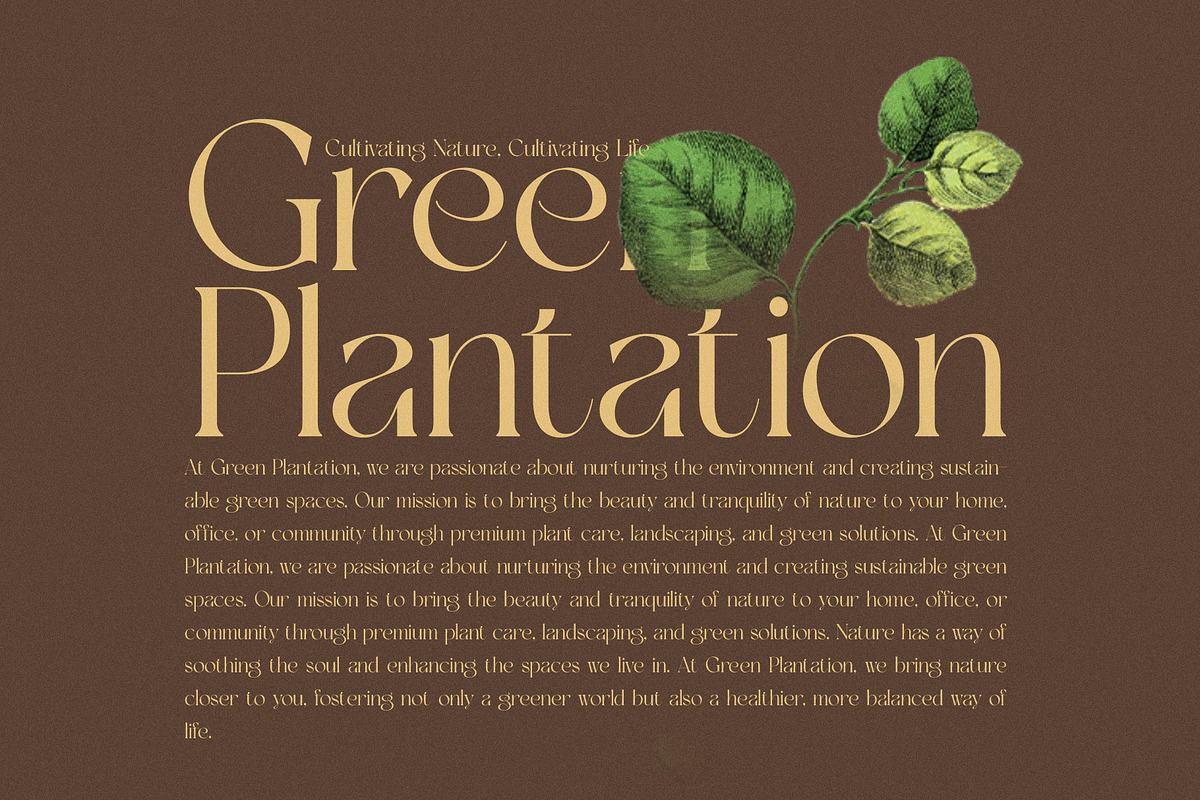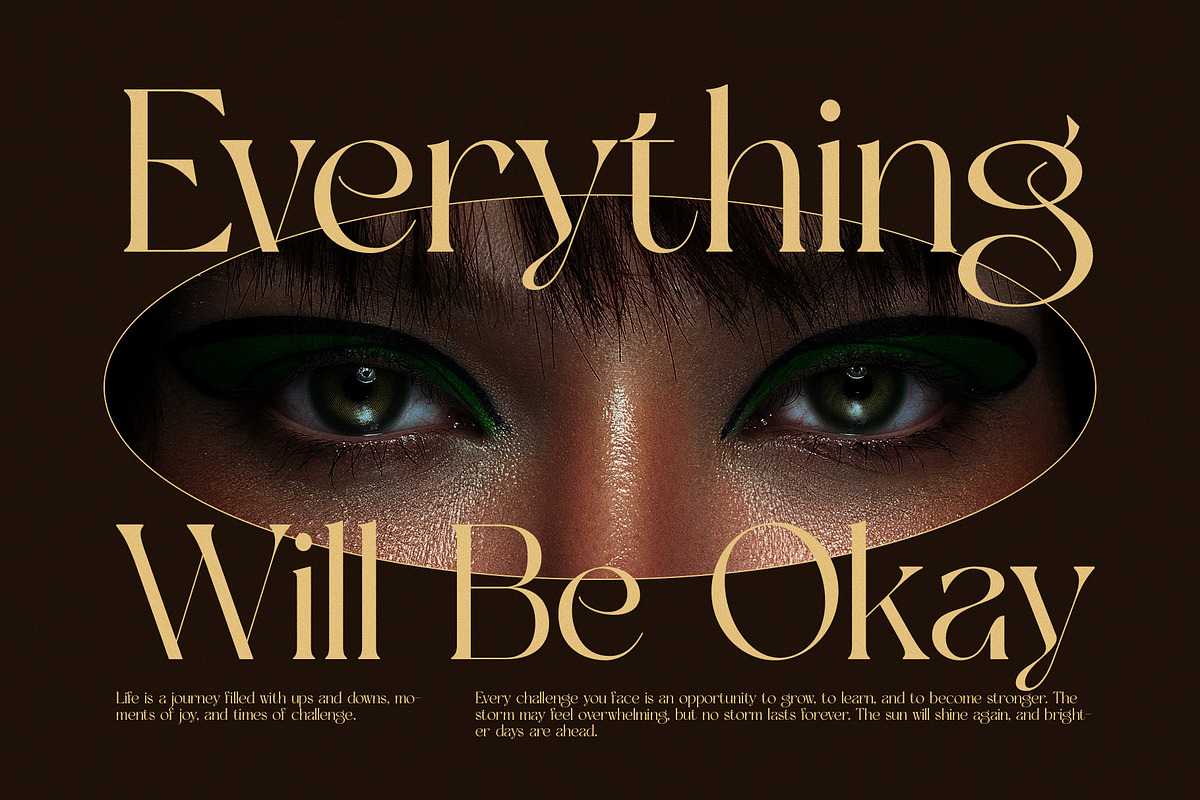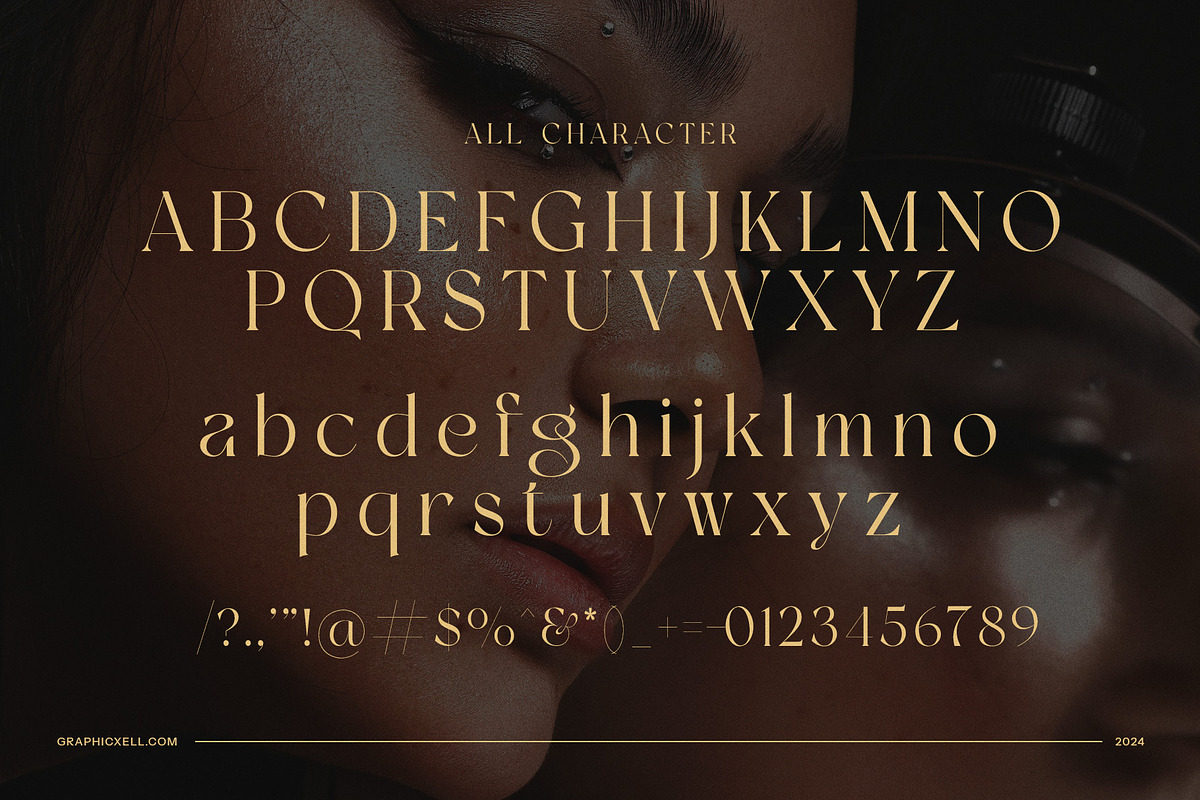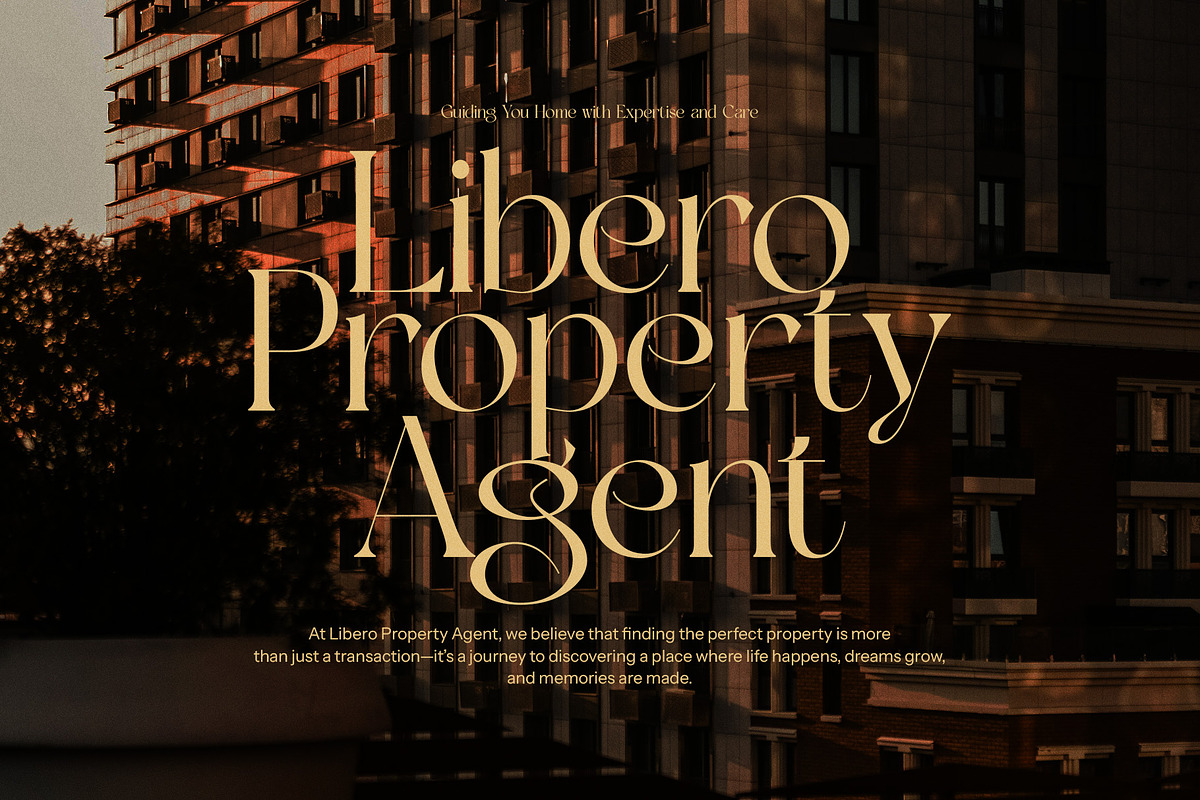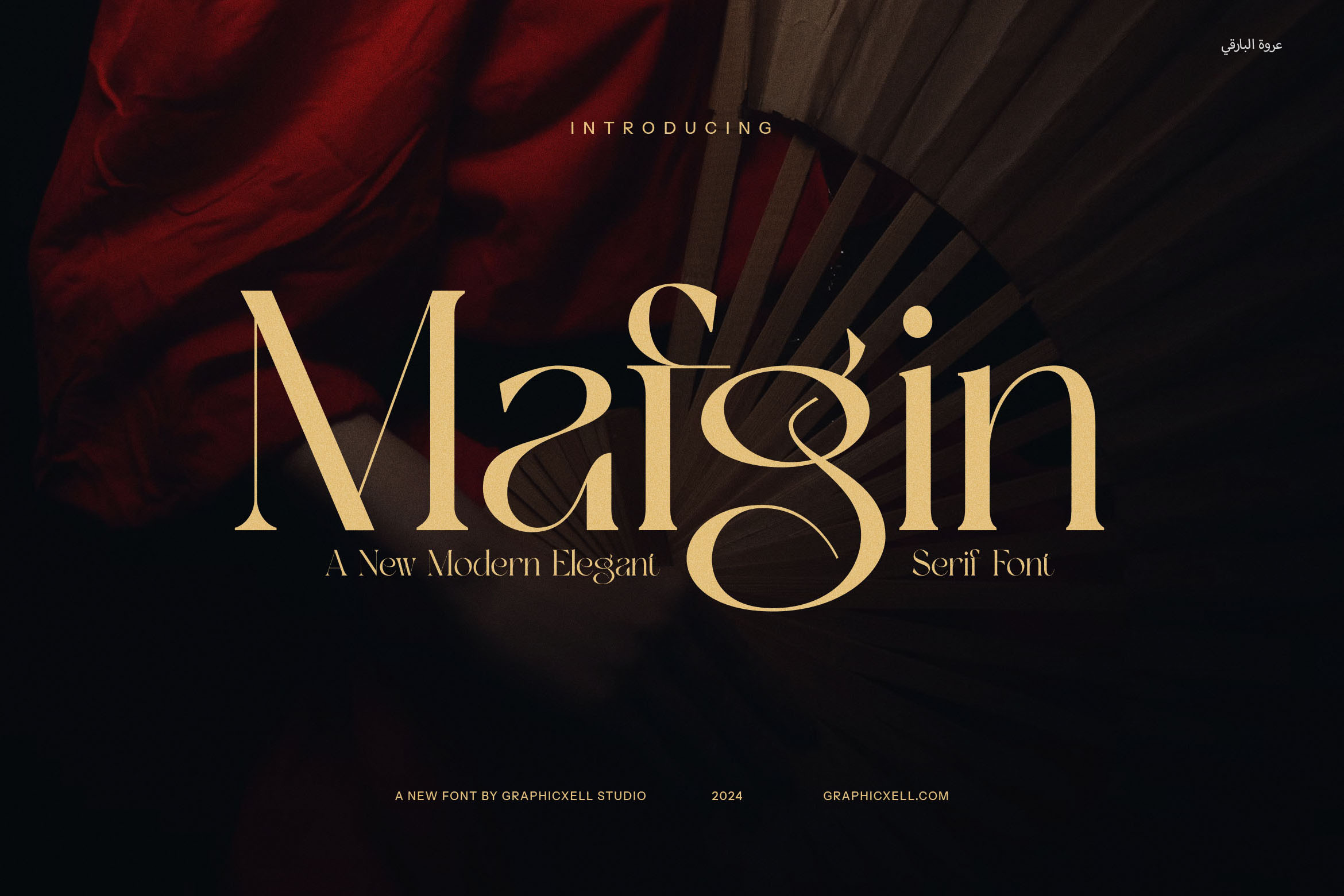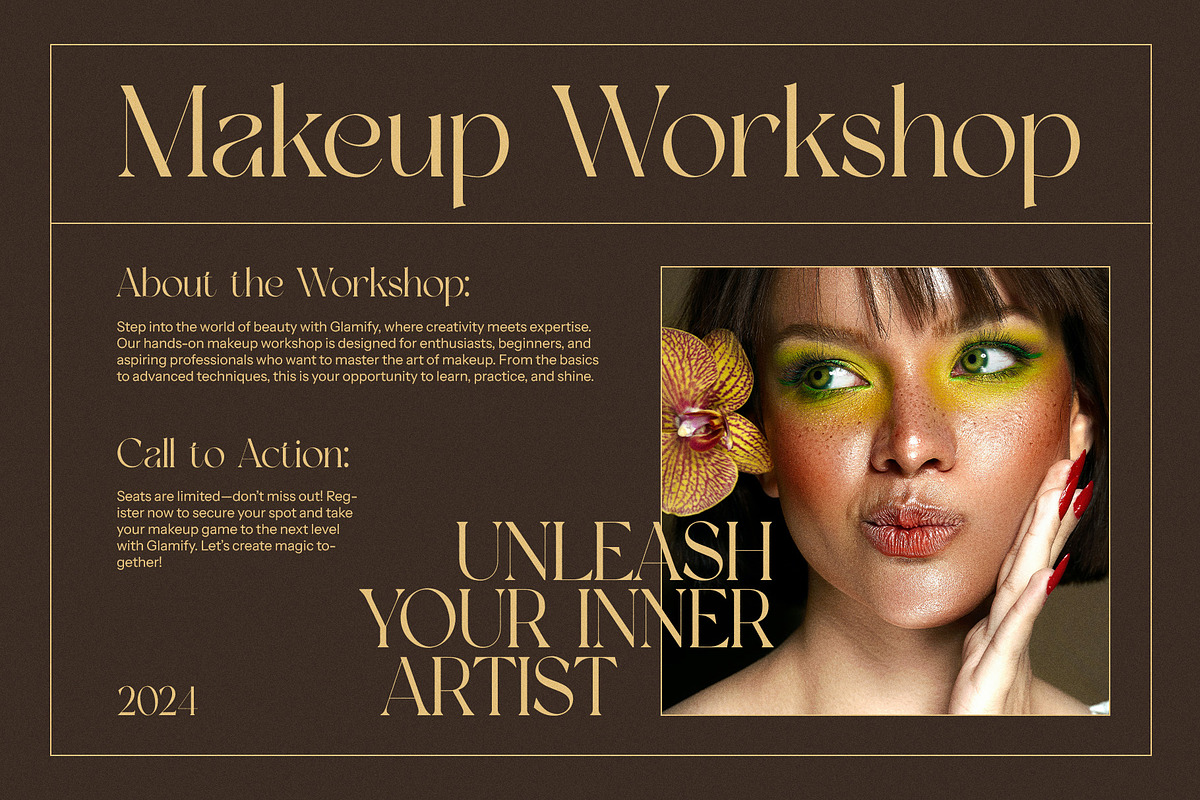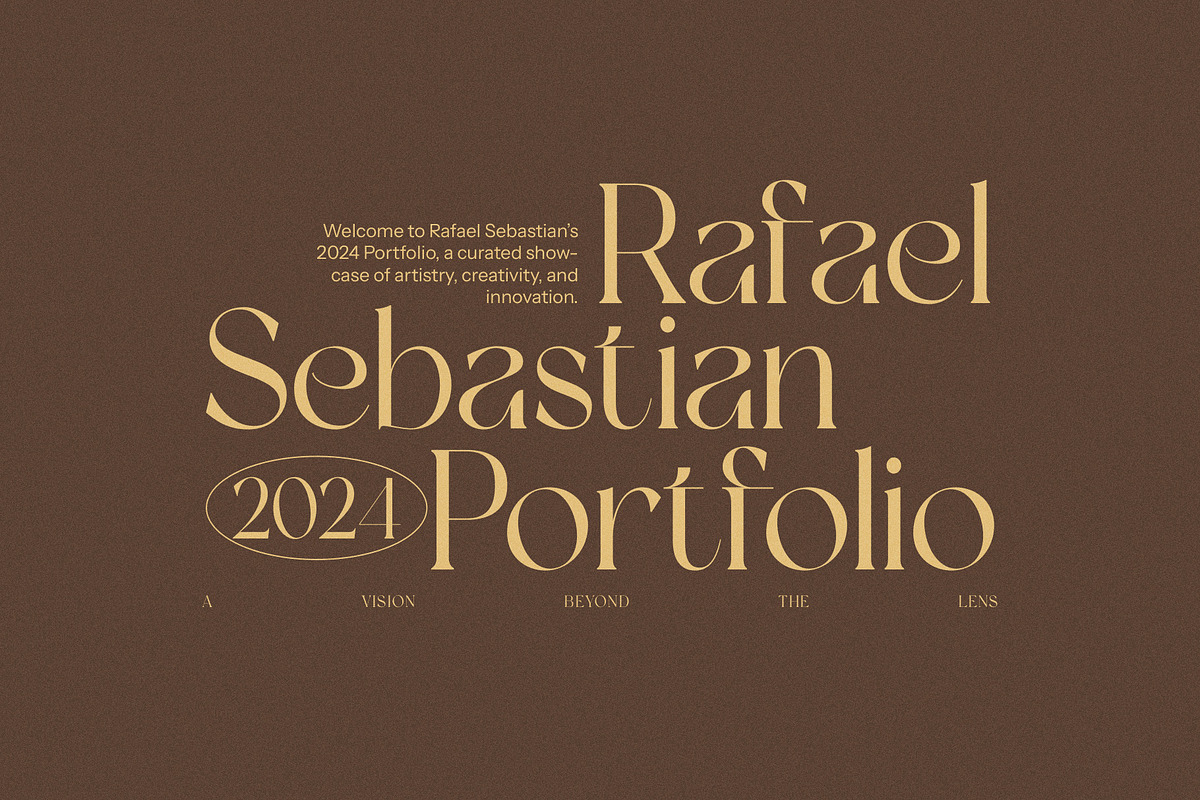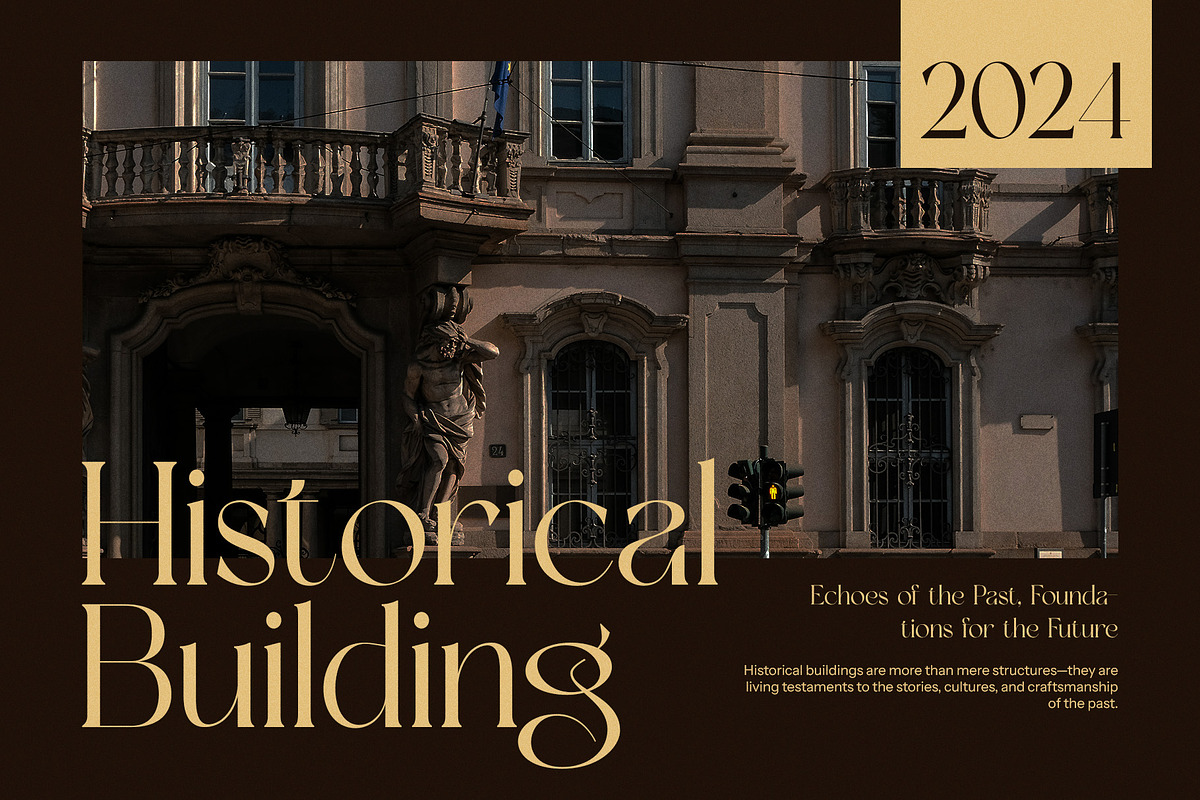
Mafgin - Elegant Serif Font
Mafgin Elegant Serif Font is a beautifully crafted typeface that seamlessly blends modern design with classic sophistication. Its elegant serifs and refined letterforms make it a standout choice for projects that require a touch of luxury and timeless appeal. With a unique and graceful structure, Mafgin adds a sense of prestige to any design, making it an ideal font for both contemporary and traditional applications.
Perfect for branding, logo design, and corporate identity, Mafgin Elegant Serif Font brings a sense of professionalism and class to your creative work. Its versatile style makes it suitable for a wide range of uses, including websites, product packaging, advertisements, and magazine layouts. Whether you're designing for a high-end boutique, an upscale restaurant, or a luxury product, Mafgin’s distinctive charm helps create a lasting impression.
The font’s modern yet refined appearance makes it particularly effective in industries such as fashion, food, lifestyle, and luxury goods. Its balance of elegance and readability ensures it works well across both digital and print mediums. From eye-catching logos to elegant promotional materials, Mafgin’s versatility is unmatched.
With its clean lines and carefully balanced proportions, Mafgin Elegant Serif Font offers the perfect blend of contemporary style and traditional sophistication. Whether you're working on an exclusive branding project or crafting an elegant magazine spread, Mafgin ensures your designs are polished, memorable, and full of character. Elevate your creative work with this unique font that effortlessly combines beauty and functionality.